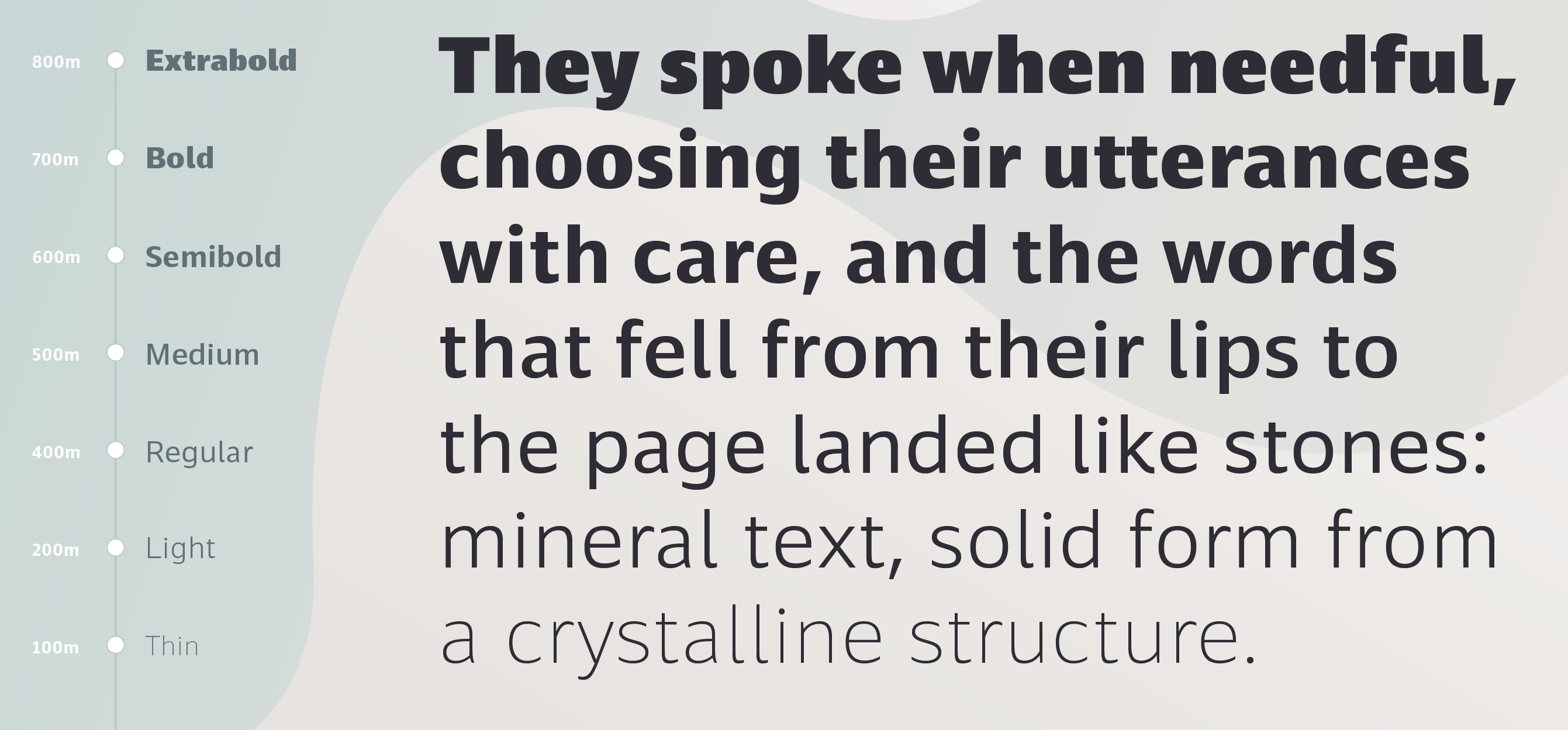
Anna Giedrys
Anna Giedrys, who is based in Lidzbark Warminski, Poland, and in Czechia, works as a graphic designer focusing on visual identities, illustrations, and typeface design. She obtained an MA in graphic design and visual communication from the University of Fine Arts in Poznan (Sign and Typography Studio) and graduated as a Master of Arts. During her exchange studies of graphic and fashion design at Vilnius Fine Arts Academy (Lithuania), she fell in love with calligraphy, lettering, and pattern design. Currently, she runs her own studio Ancymonic and collaborates with Rosetta Type Foundry. Google Plus link.
Her typefaces:
• Signika (2011) and Signika Negative (2011). A free sans family at Google Web Fonts, it was designed for pedestrian signage.
• Yrsa and Rasa (2015, open-source type families published by Rosetta with financial support from Google). The fonts support over 92 languages in Latin script and two languages in Gujarati script (Gujarati and Kachchi). The design and production are by Anna Giedrys and David Brezina. Yrsa is the name of the Latin-only type family. Rasa is the name of the Gujarati type family. They explain: Both type families are intended for continuous reading on the web (longer articles in online news, magazines, blogs). In Yrsa, a special consideration was given to Central and East European languages and proper shaping of their accents. Rasa supports a wide array of basic and compound syllables used in Gujarati. In terms of glyphs included Rasa is a superset of Yrsa, it includes the complete Latin. What makes Yrsa & Rasa project different is the design approach. It is a deliberate experiment in remixing existing typefaces to produce a new one. The Latin part is based on Merriweather by Eben Sorkin. The Gujarati is based on David Brezina's Skolar Gujarati. Anna Giedrys updated Yrsa substantially in 2021.
• In 2021, Ross Mills, Anna Giedrys and Paul Hanslow co-designed the 14-style sans family Laconia at Tiro Typeworks.